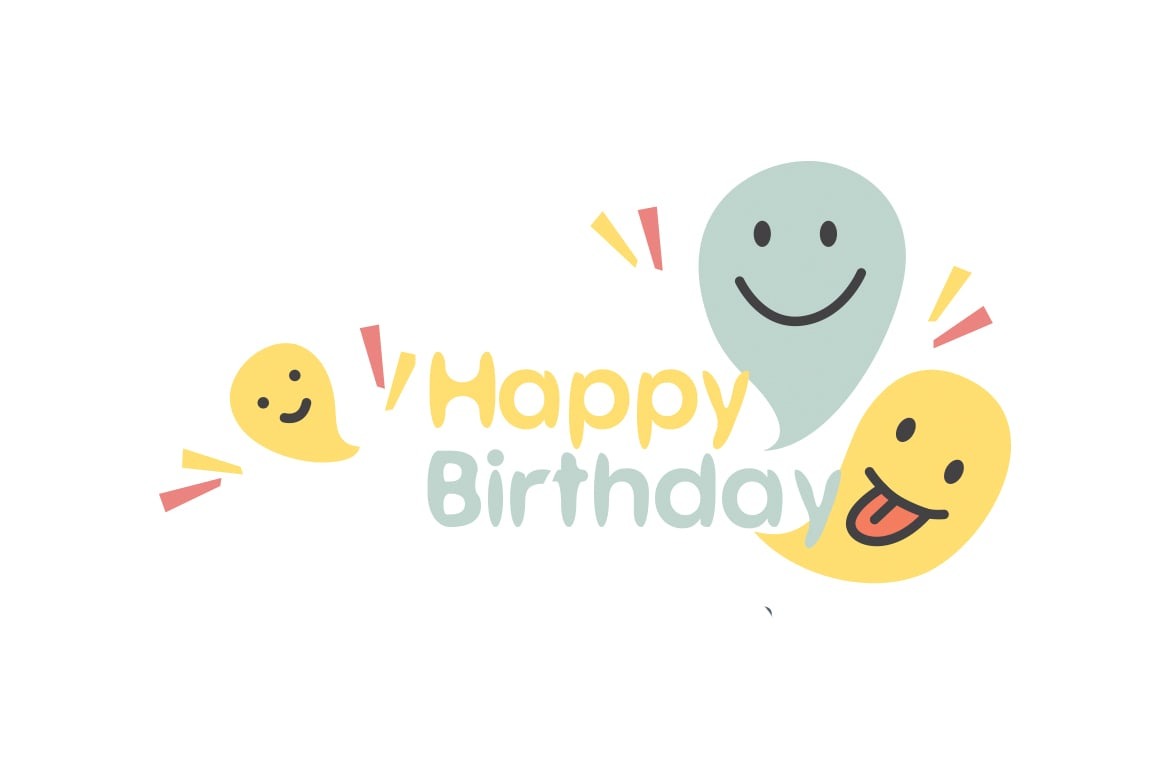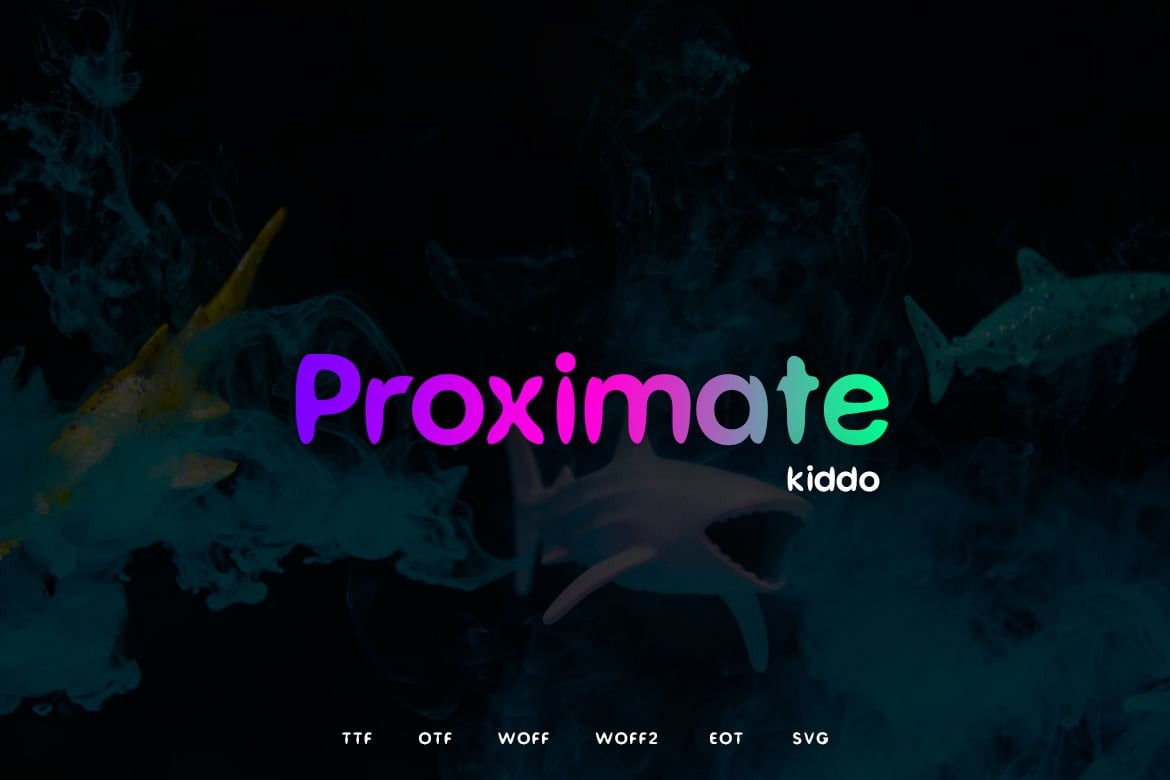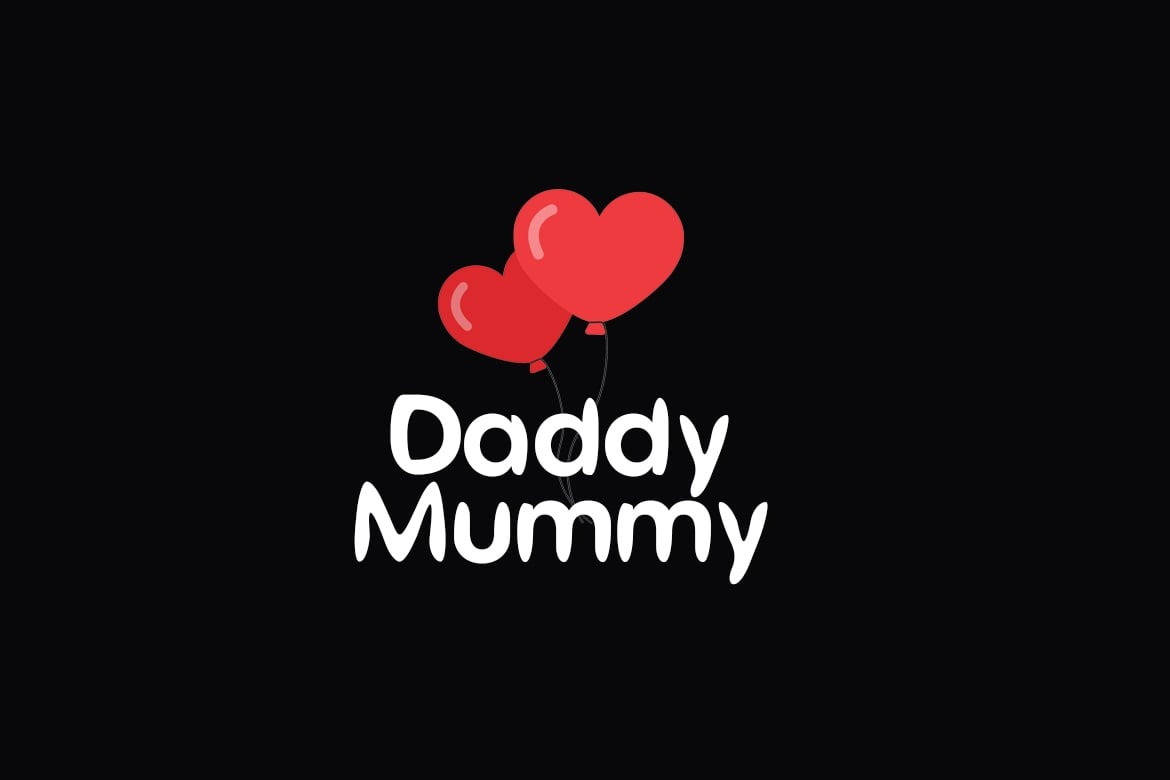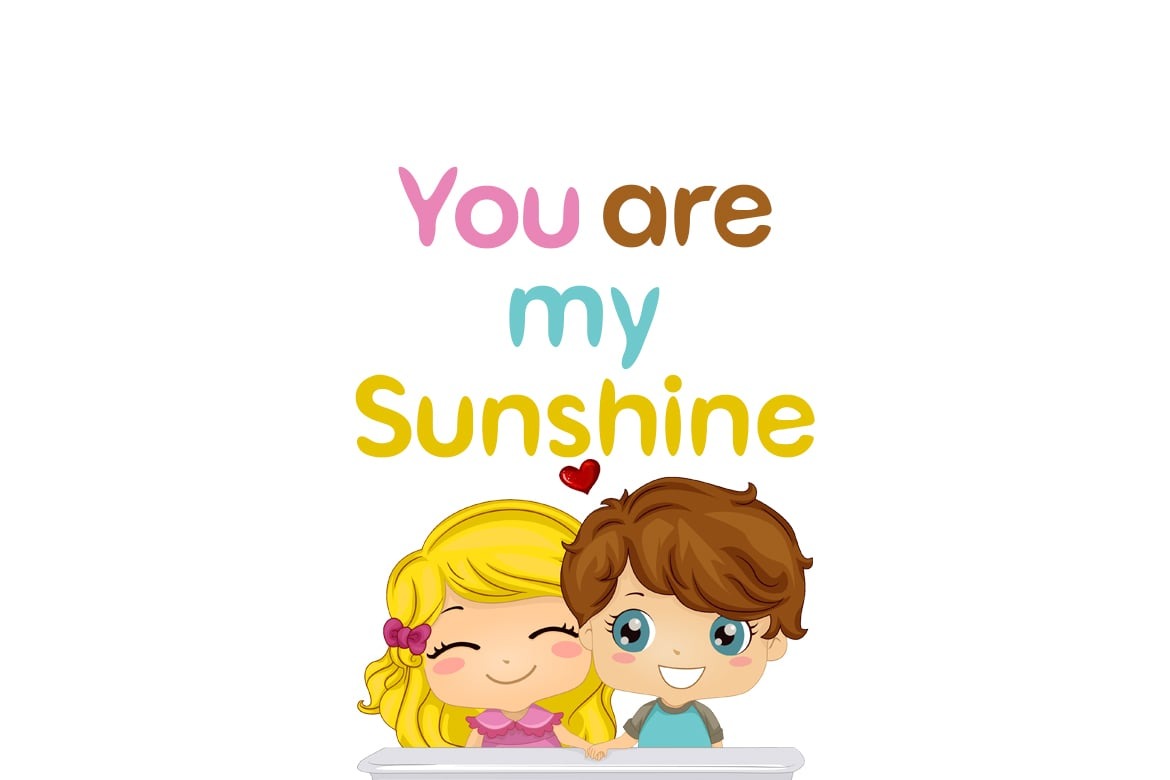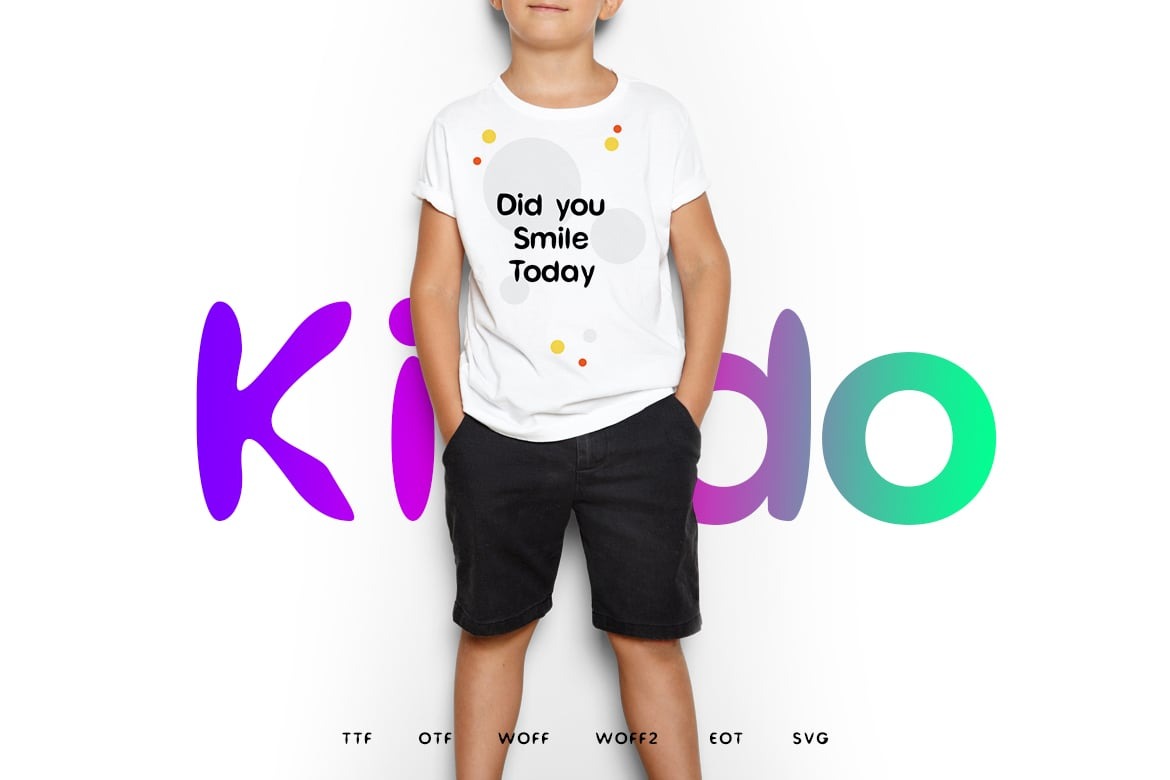
Proximate Kiddo is a modern Sans Serif typeface very much suitable for Comic Posters, Childish headlines, Decorative letters, Notices, Logo Designs, Big funny Banners. Creative & Decorative Typography Web Designs.Proximate Kiddo is perfectly suited for eye-catching fun based headlines. Its Kiddy appearance and mid-weight make it a wonderful candidate for being paired with more decorative, elaborate subheading fonts.The pack includes OTF, TTF and Web Fonts